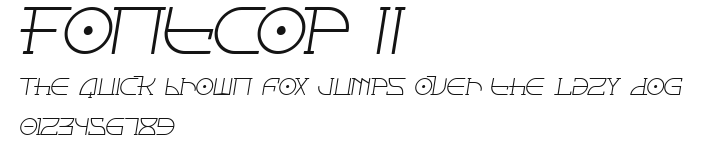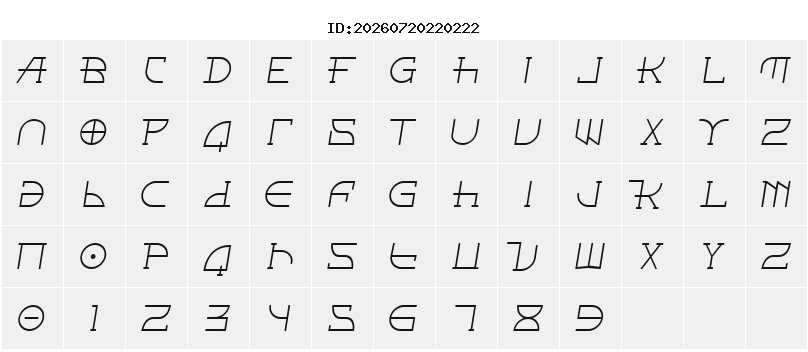
• Font Name: Fontcop II
• Font ID: Apostrophe(')andAlejandroPaul.: Fontcop II: 2000
• Full Font Name: Fontcop II
• Designer: Apostrophe (') and Alejandro Paul.
About Fontcop II.ttf
Fontcop II.ttf is a modern, elegant sans-serif font designed for ultimate readability and visual harmony. Perfect for branding, headlines, web design, and print materials.